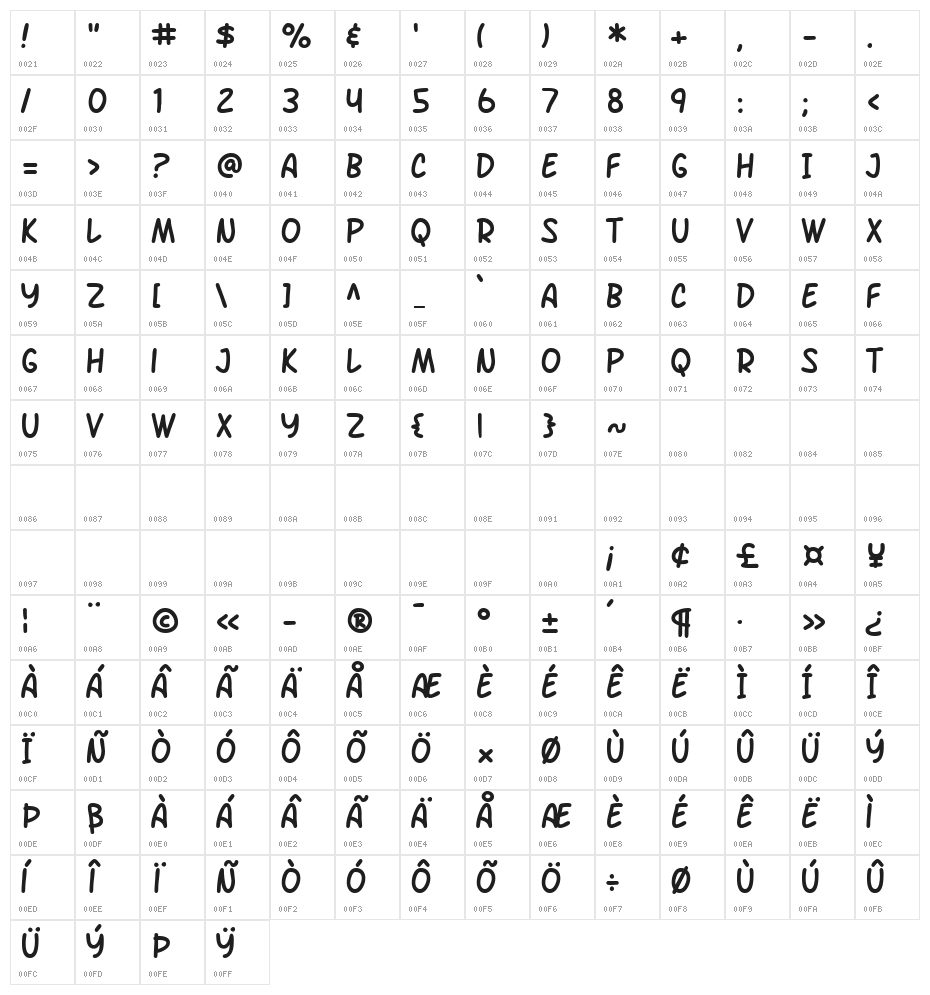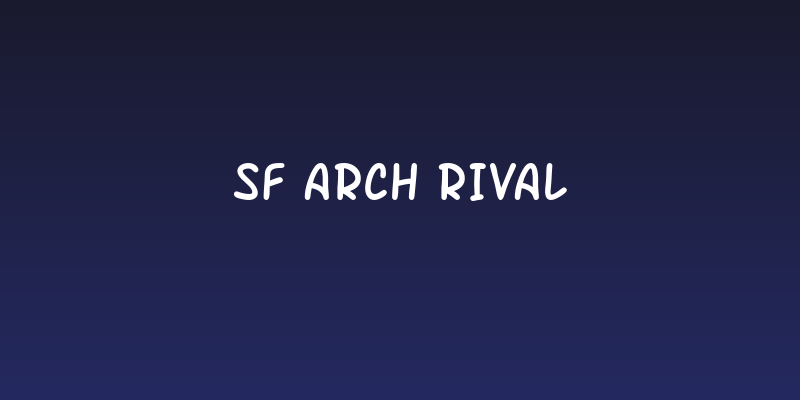
SF Arch Rival Font
SF Arch Rival Description
This playful and bold font features rounded, hand-drawn characters that convey a sense of fun and informality. The letters are slightly slanted, adding a dynamic and energetic feel to the text. The strokes are consistent in width, providing a uniform appearance that enhances readability. The numbers and special characters maintain the same whimsical style, making the font versatile for various creative applications. Its friendly and approachable design makes it suitable for projects that aim to engage a youthful audience or convey a casual tone.
| Proposed Projects | Ideal for children's books, comic strips, playful branding, and casual event invitations. |